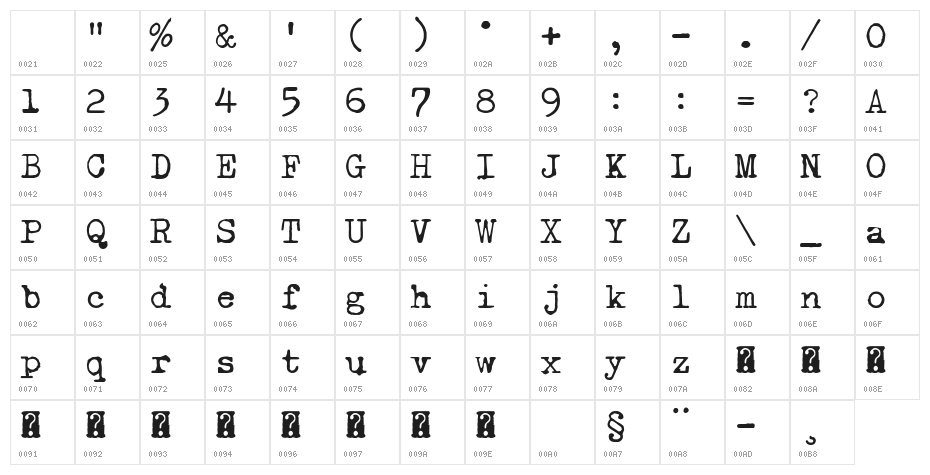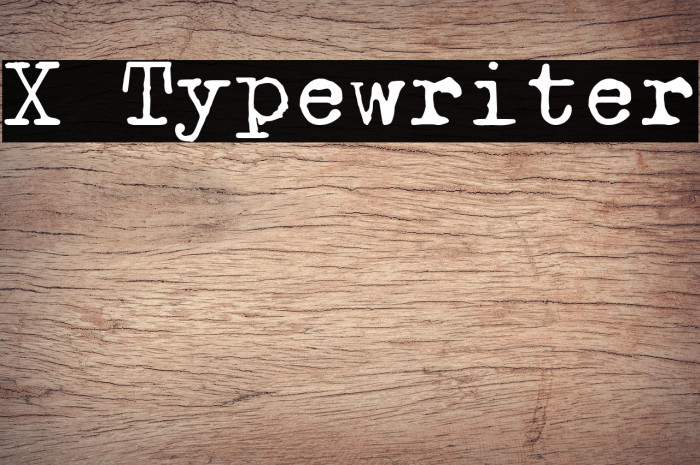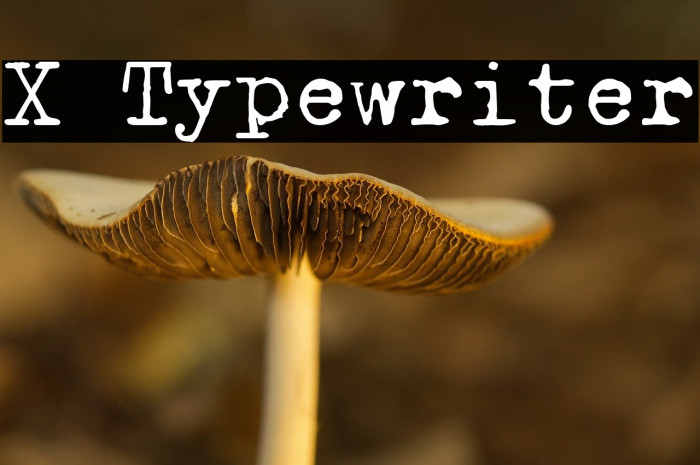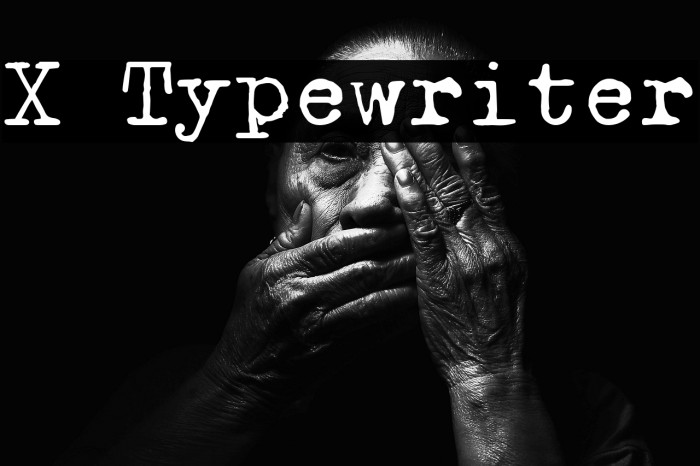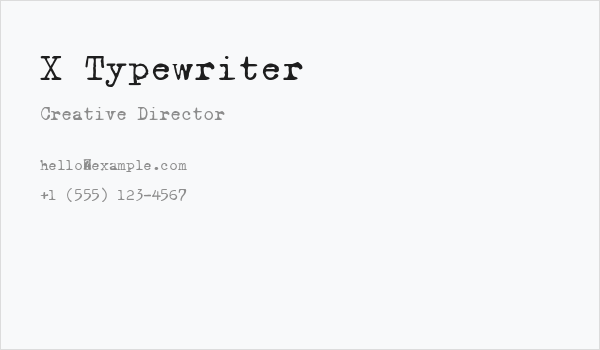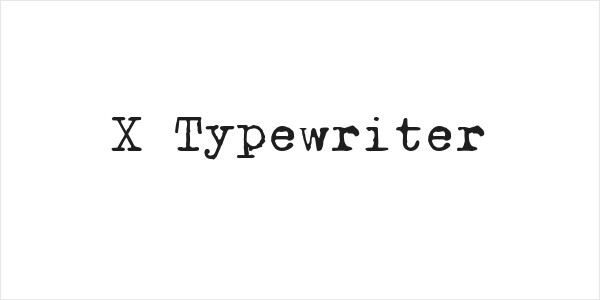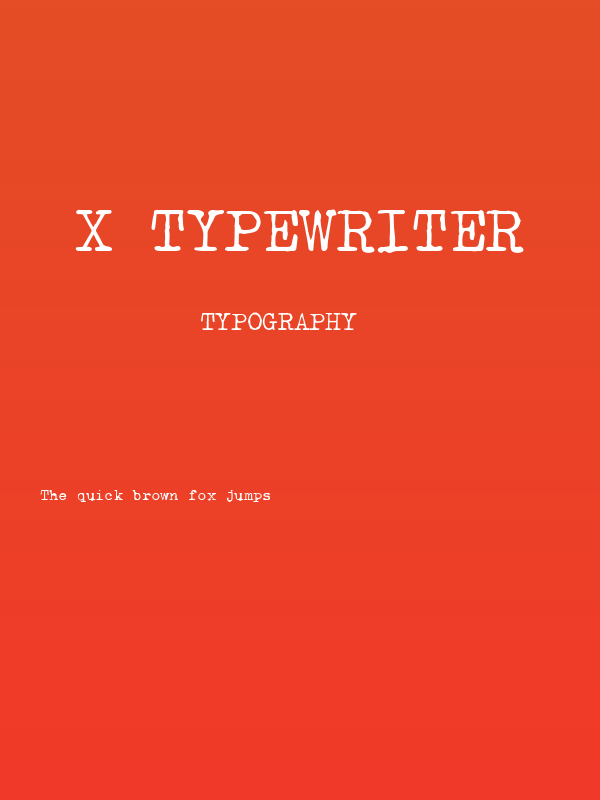
X Typewriter Font
| Zeichenabstand | Normal |
| Gesamtstil | Vintage |
| Anwendungsfall | Headlines, Logos, Decorative text |
| Vorgeschlagene Projekte | Ideal for retro-themed designs, vintage posters, typewriter art, and any project that seeks to evoke a sense of nostalgia. |
| Wird Pitch | Yes |